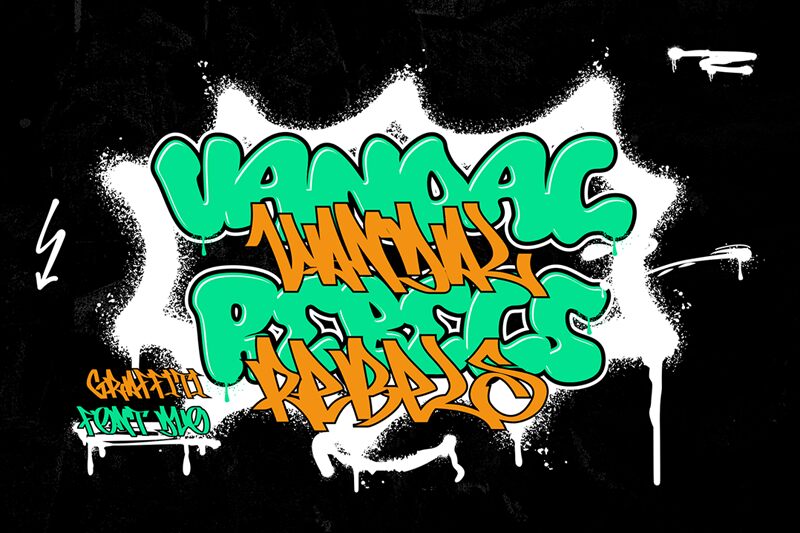
Vandal Rebels Thick font family is a bold colorful graffiti-inspired display typeface with 4 font styles crafted to perfection by Cikareotype Studio. This free font family features two key advantages: an expressive dynamic pop out rebellious visual artwork and energetic aesthetic inspired by street art culture. Effortlessly achieve all these aspects in your design when you use Vandal Rebels Thick.
Use this font for visually impactful branding, print media, advertising, packaging labels, posters, covers, social media, and video content. It will also look splendid on artwork created for street art, youth culture, or urban design purposes.